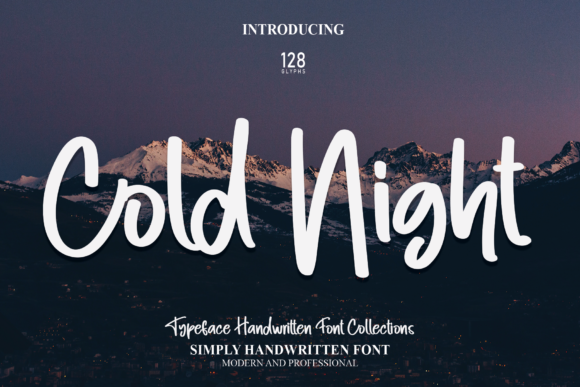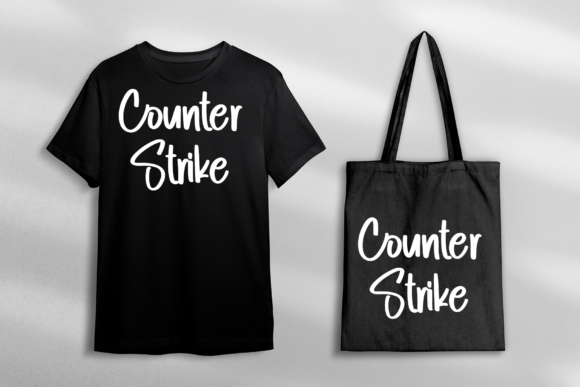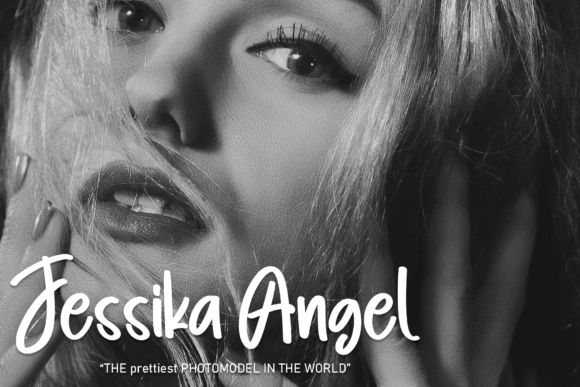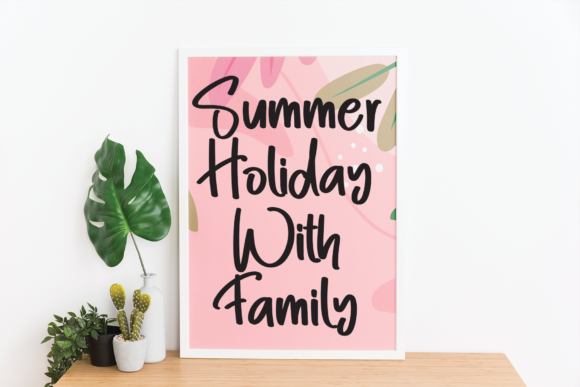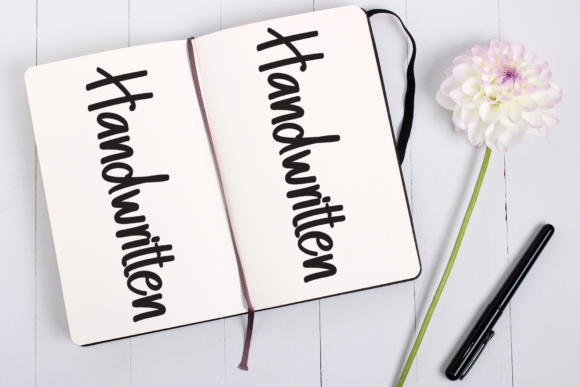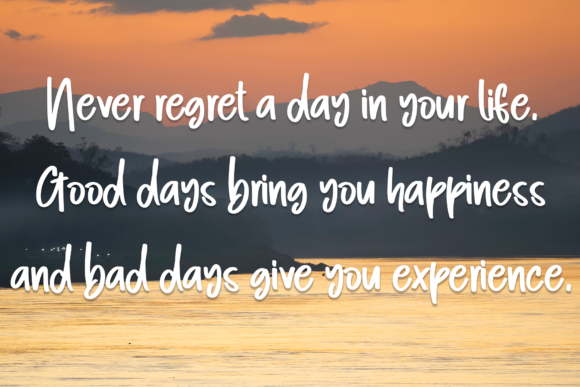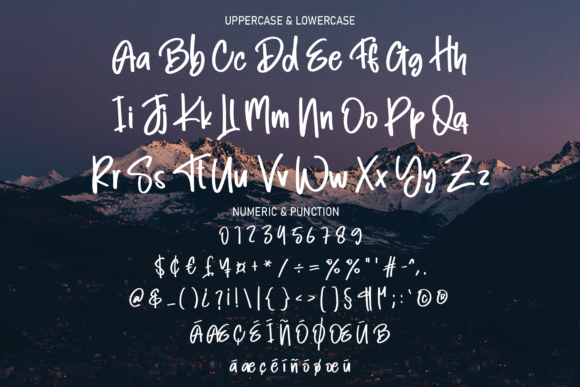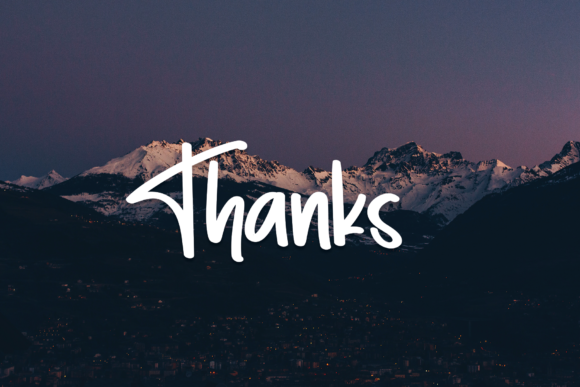
Cold Night Font
About Cold Night Font
“Cold Night” stands as a timeless and versatile handwritten script font, meticulously crafted in a random and free style. With its classic simplicity and elegant flair, this font proves to be a valuable asset for a myriad of creative projects across different industries.
One of the notable features of “Cold Night” is its adaptability, making it suitable for a wide range of design applications. Whether you’re crafting a logotype, designing a captivating headline, establishing a corporate identity, or working on brand identity elements, “Cold Night” effortlessly adds a touch of sophistication. Its straightforward yet unique style enhances the visual appeal, allowing it to seamlessly integrate into the apparel industry, posters, music and movie graphics, games, magazines, books, comics, cartoons, YouTube content, Instagram posts, and website designs.
The font’s random and free style brings a distinct character to your creative projects, ensuring that each application stands out with its unique charm. Its versatility shines through in various contexts, making it an excellent choice for designers seeking a classic and modern handwritten script that can adapt to diverse visual themes.
Beyond its visual appeal, “Cold Night” offers practicality in application. Whether used in print or digital media, it maintains clarity and readability, ensuring effective communication of the intended message. This makes it an ideal choice for designers and creators looking to evoke a timeless yet contemporary vibe in their work.
In conclusion, “Cold Night” is more than just a font; it’s a design companion that adds a touch of elegance to your creative endeavors. With its classic simplicity and random free style, it effortlessly blends into different industries, bringing a versatile and timeless quality to logotypes, headlines, corporate identities, and a wide array of design projects. Embrace the unique character of “Cold Night” as you embark on crafting visually captivating and stylish designs across various media.